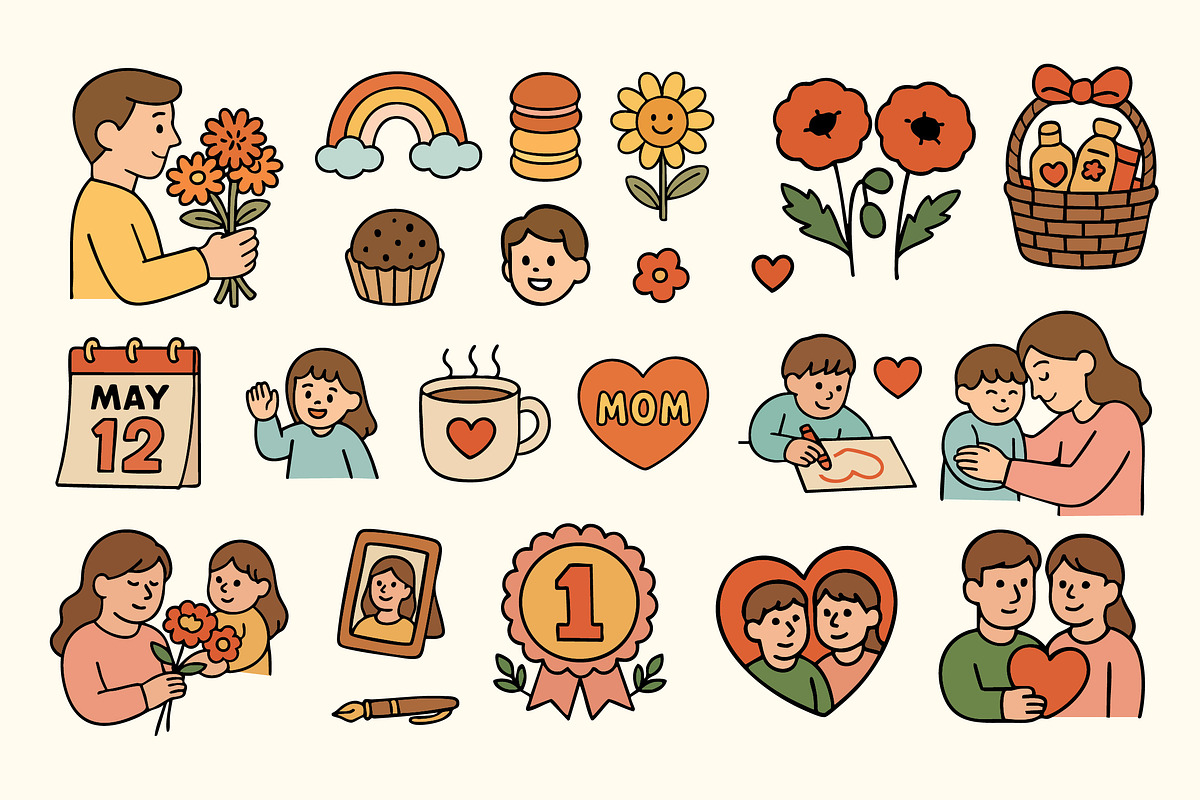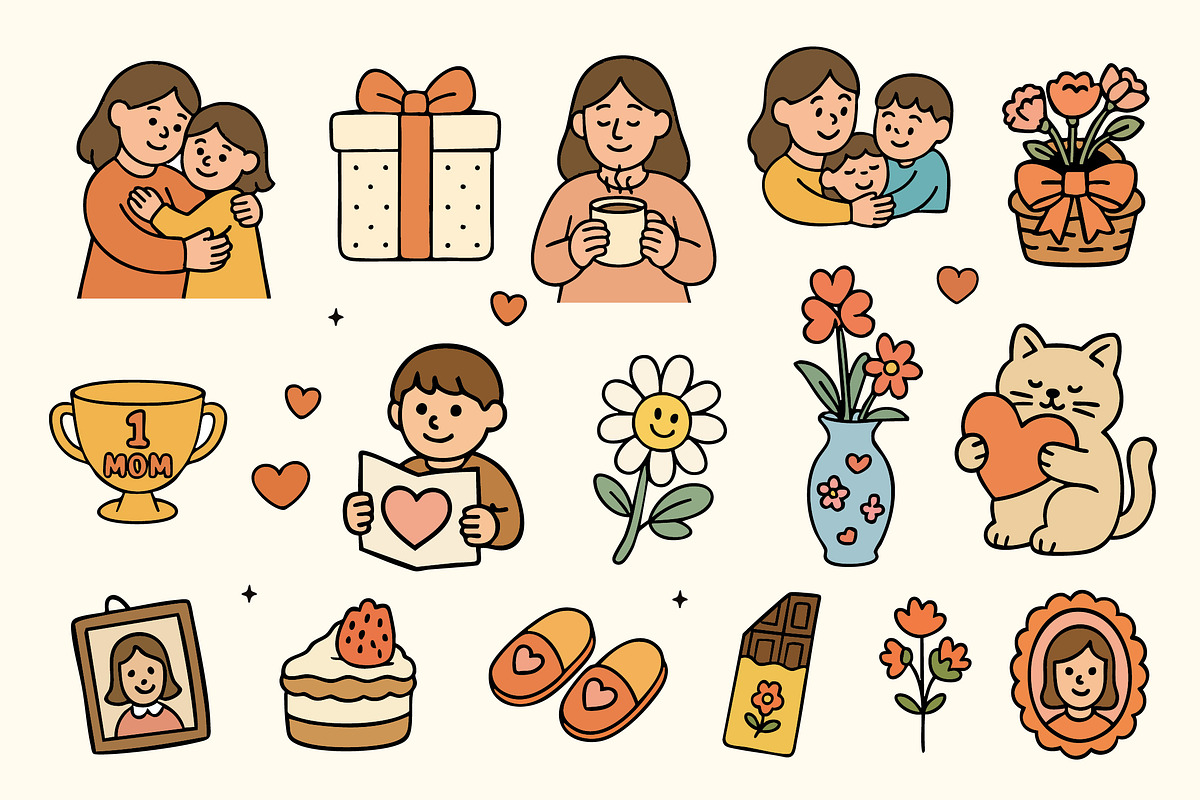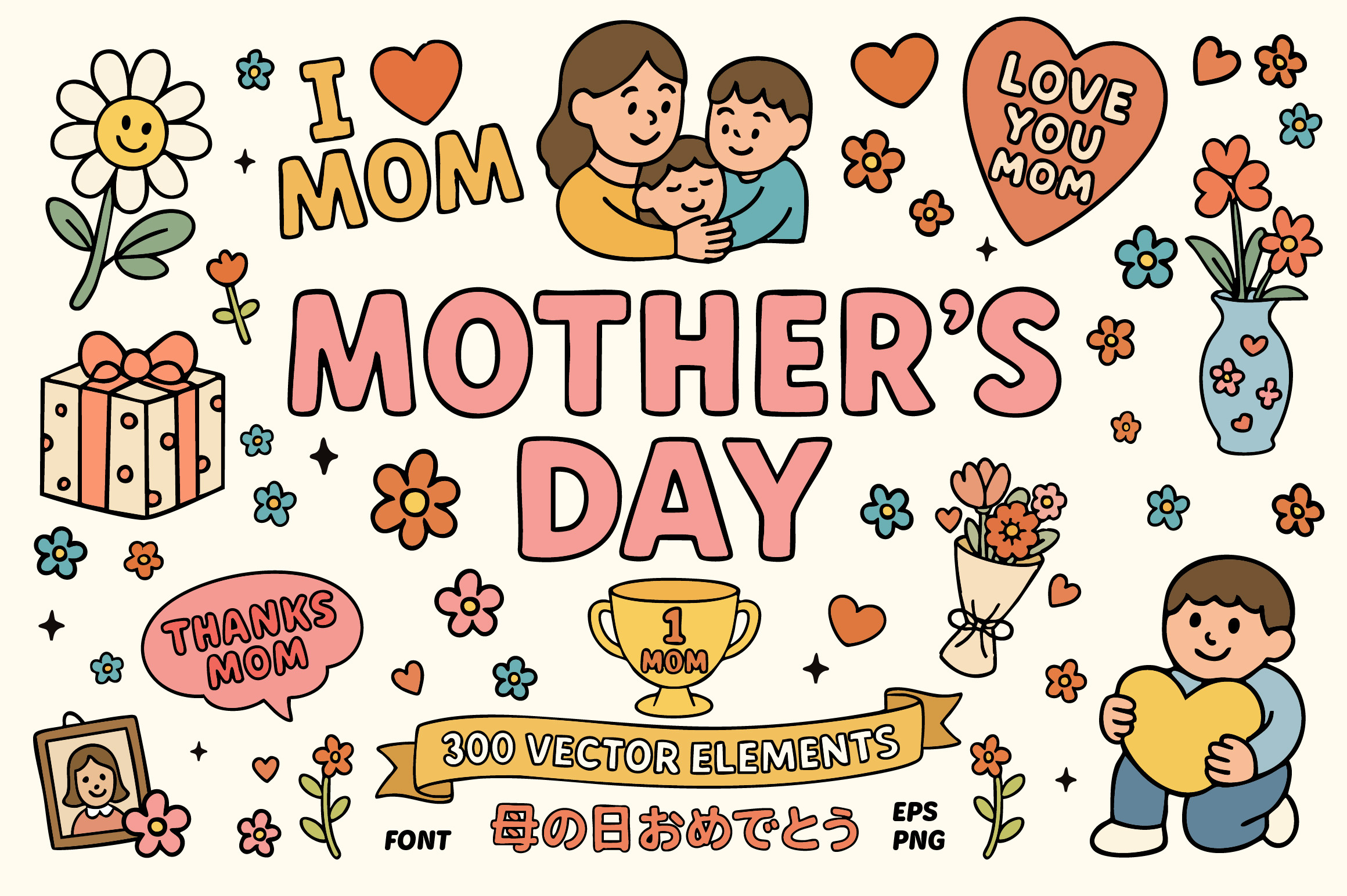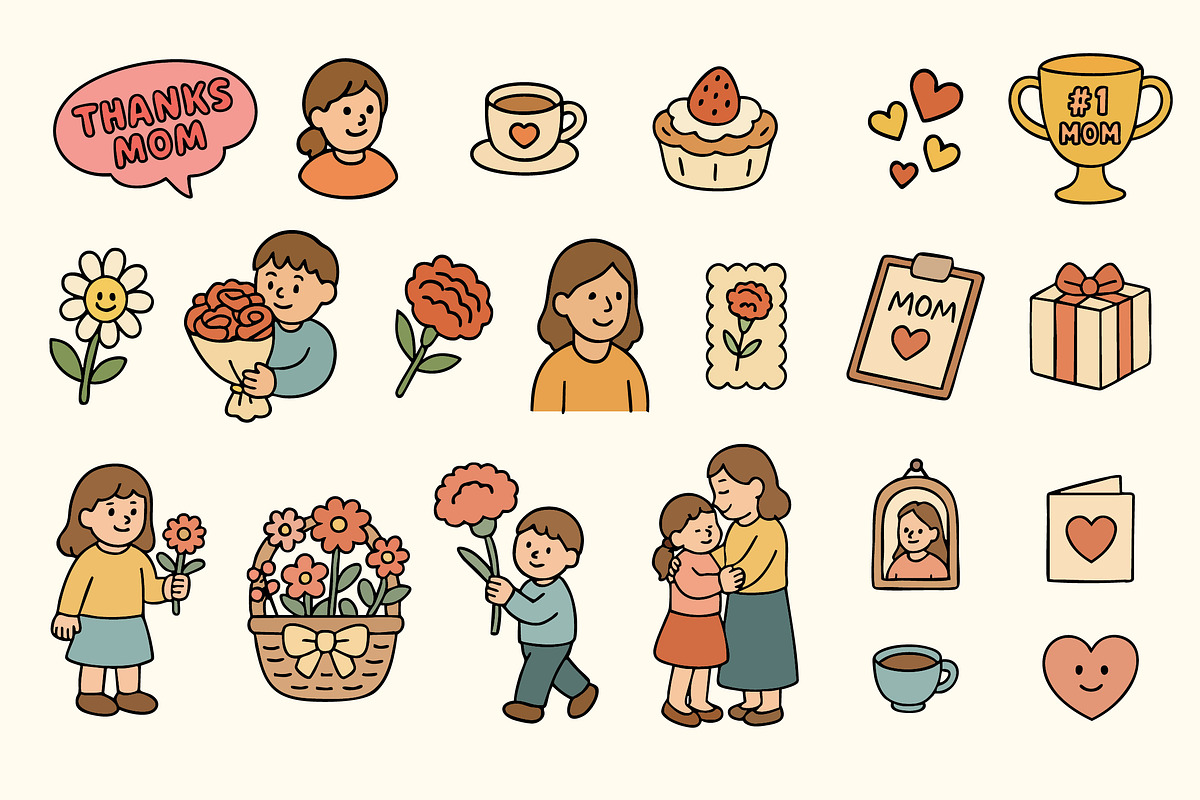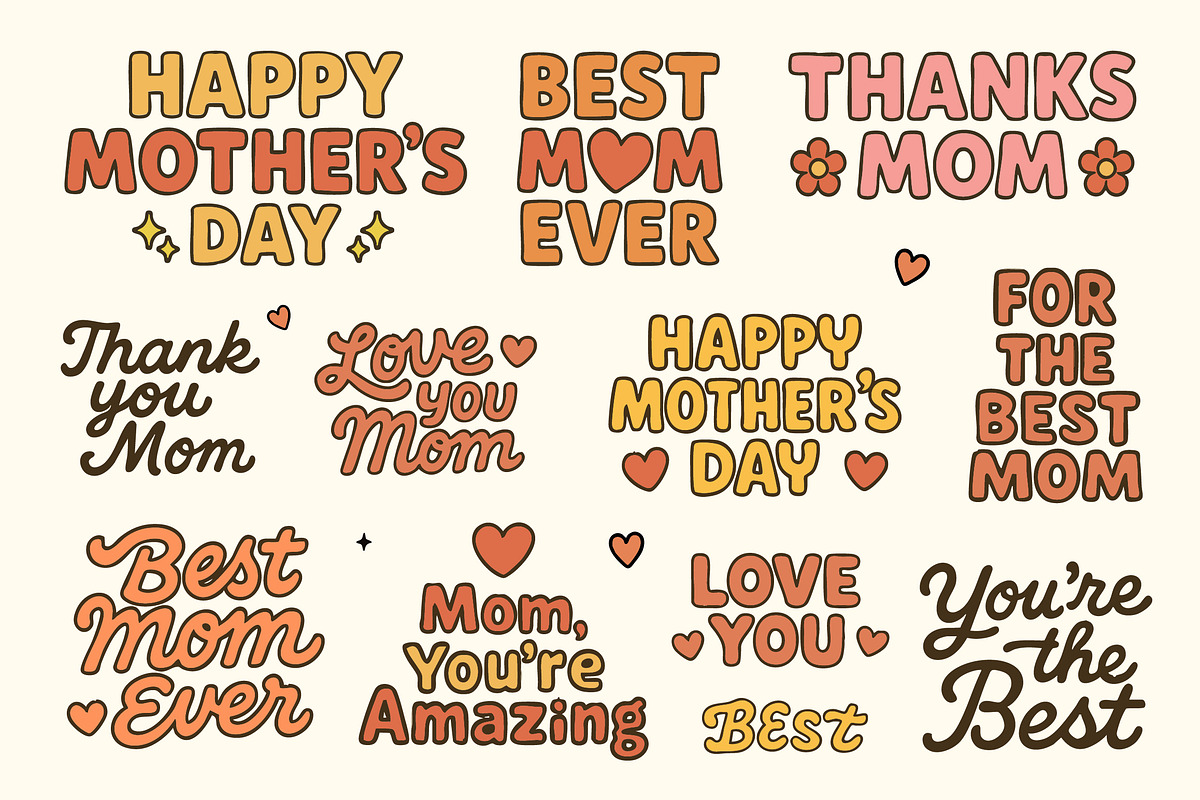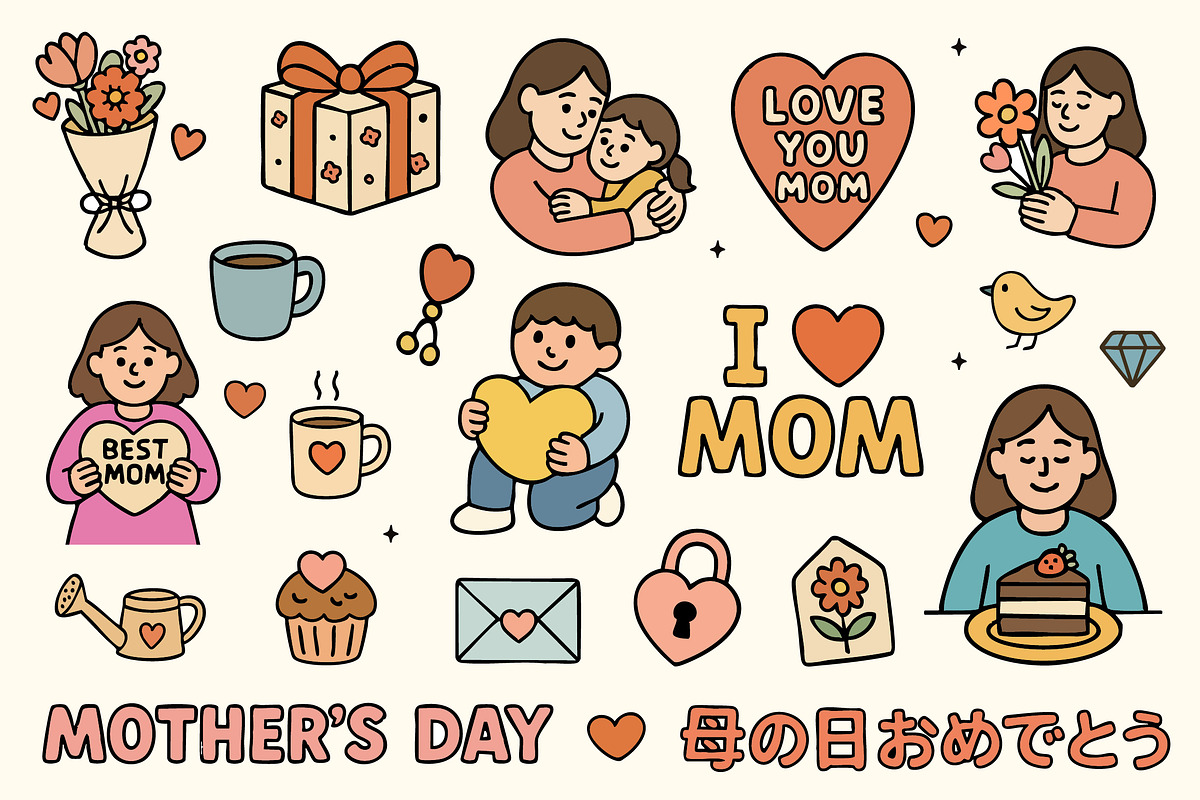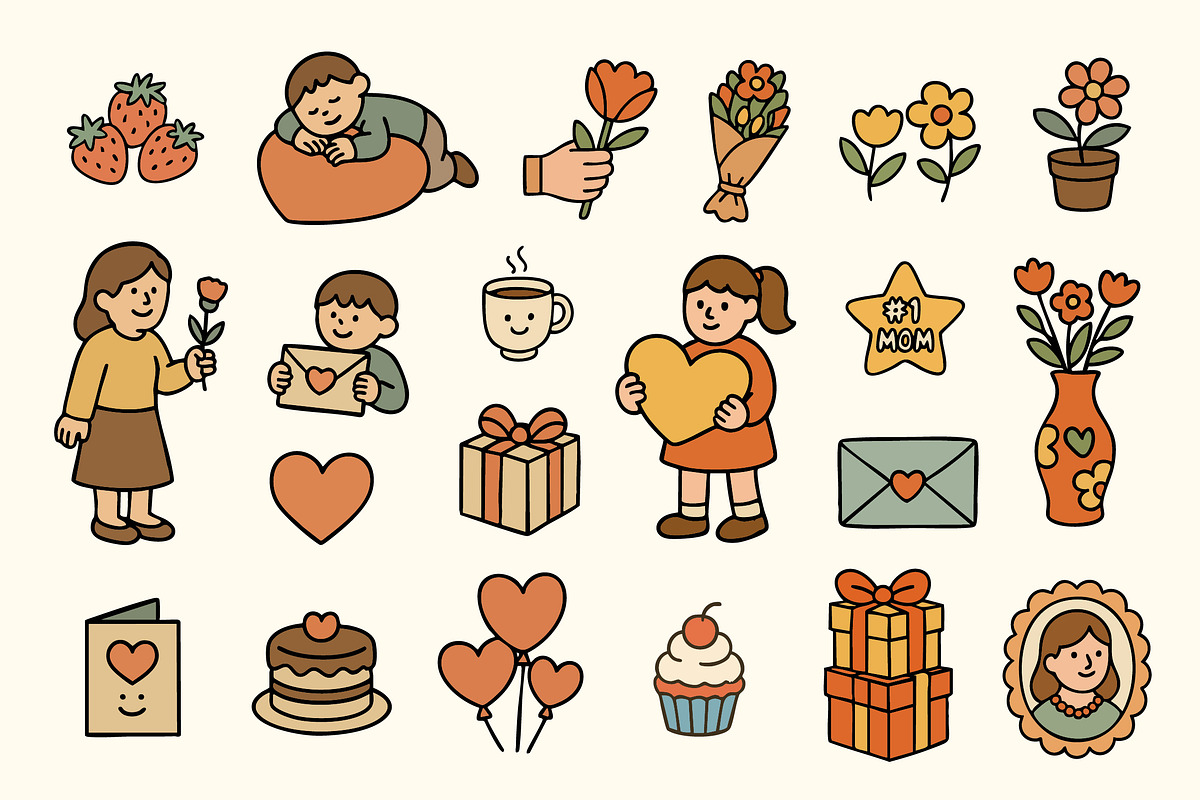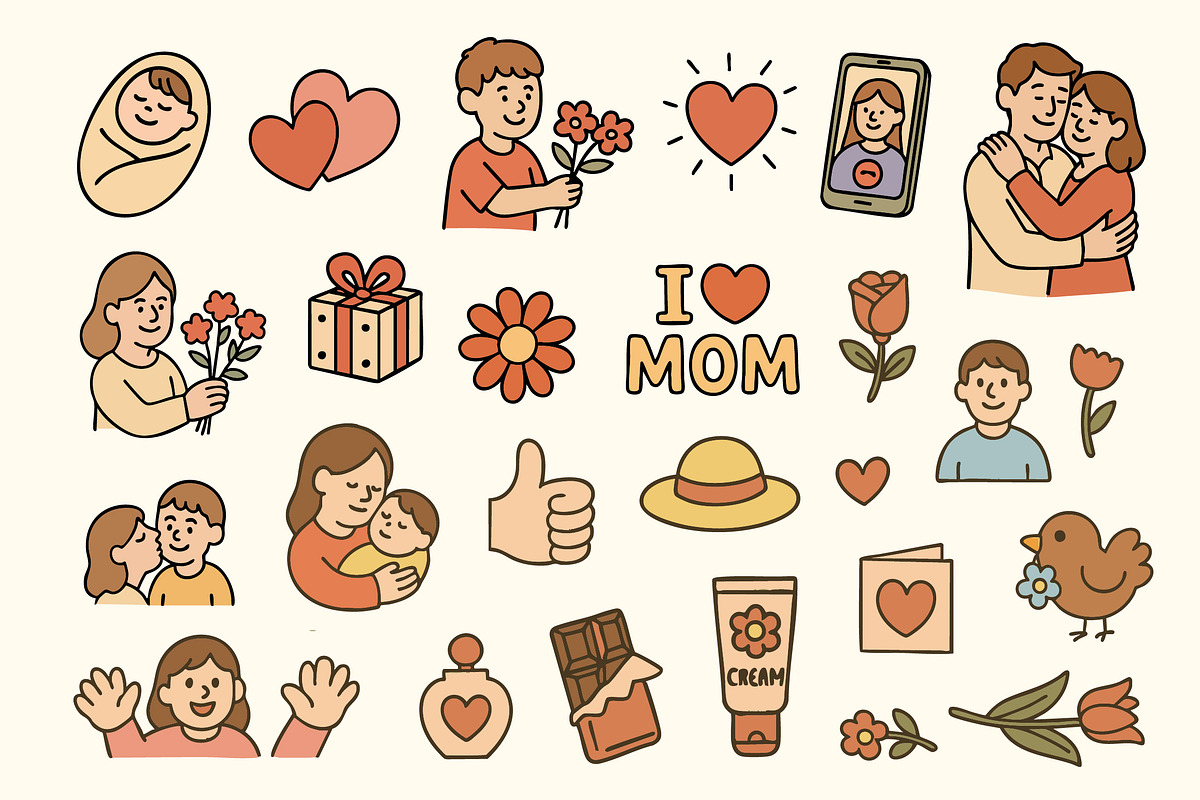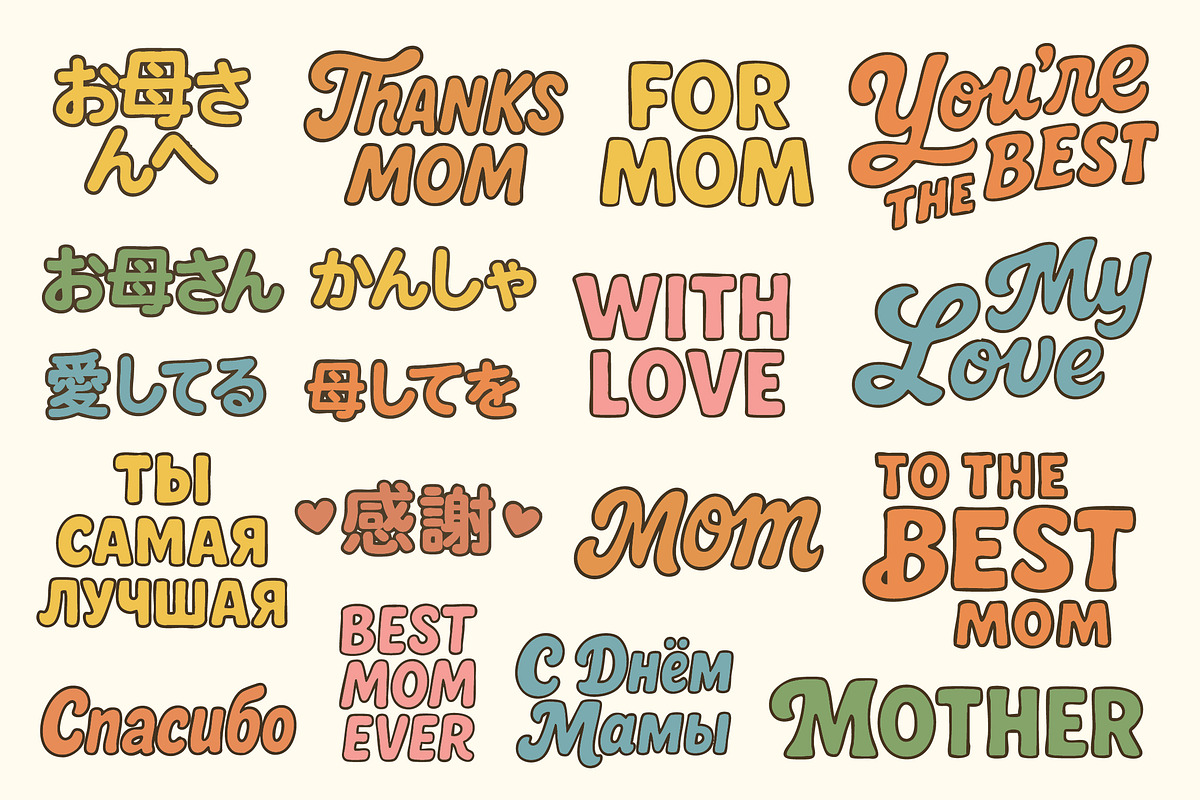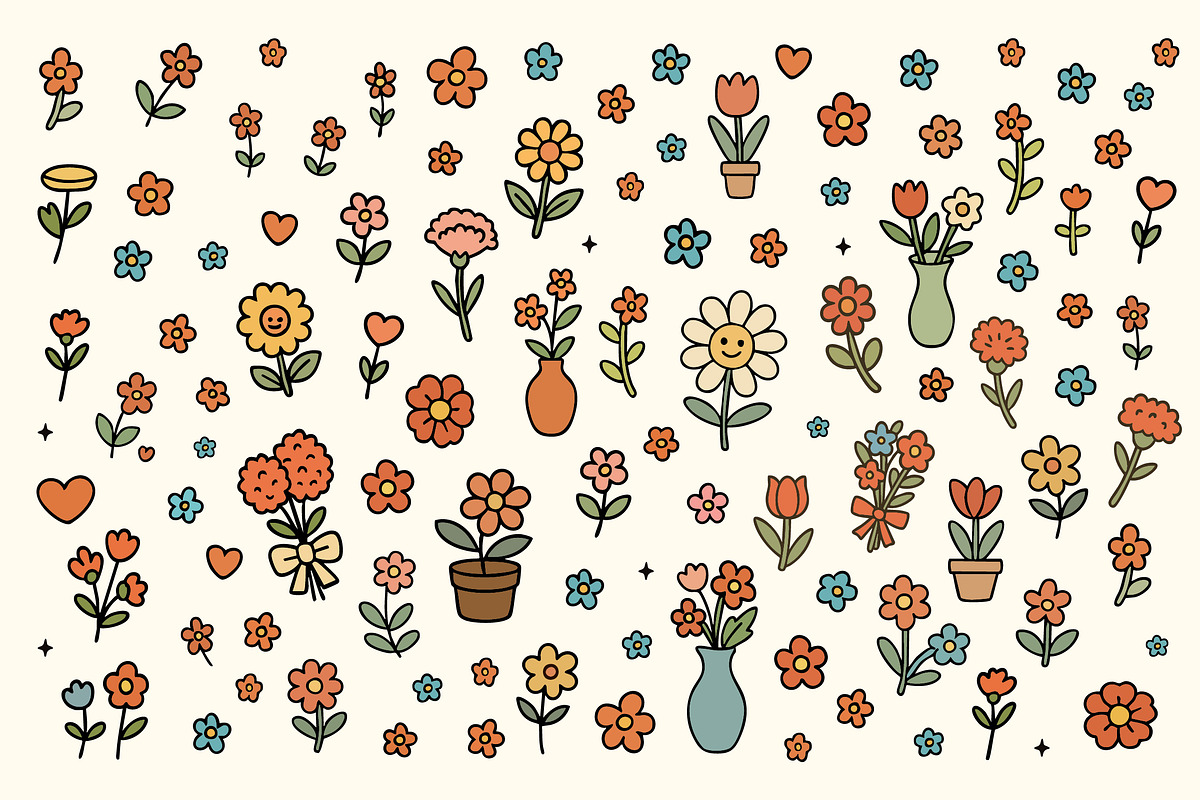
Mother's Day - 300+ Elements & Font
Celebrate moms with a joyful retro twist!
This Mother’s Day Vector Pack is bursting with love, hugs, and flowers — all hand-drawn in a warm vintage cartoon style. Whether you're creating greeting cards, social posts, printables, or scrapbooking kits, this collection is made to spread smiles.
- Cute hand-drawn characters, gifts, flowers, hearts, and cozy scenes
- Japanese, Cyrillic & English phrases for international flair
🌸 Soft pastel palette, clean outlines, and timeless kawaii vibes. Bring a touch of nostalgia and a lot of heart to your designs this Mother's Day!